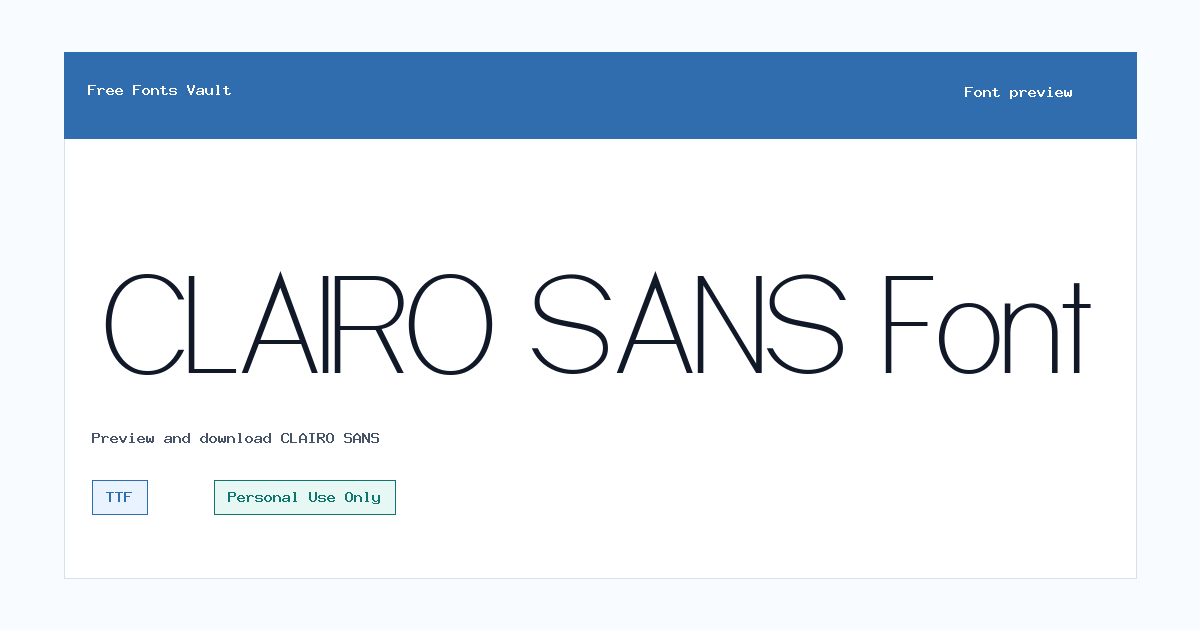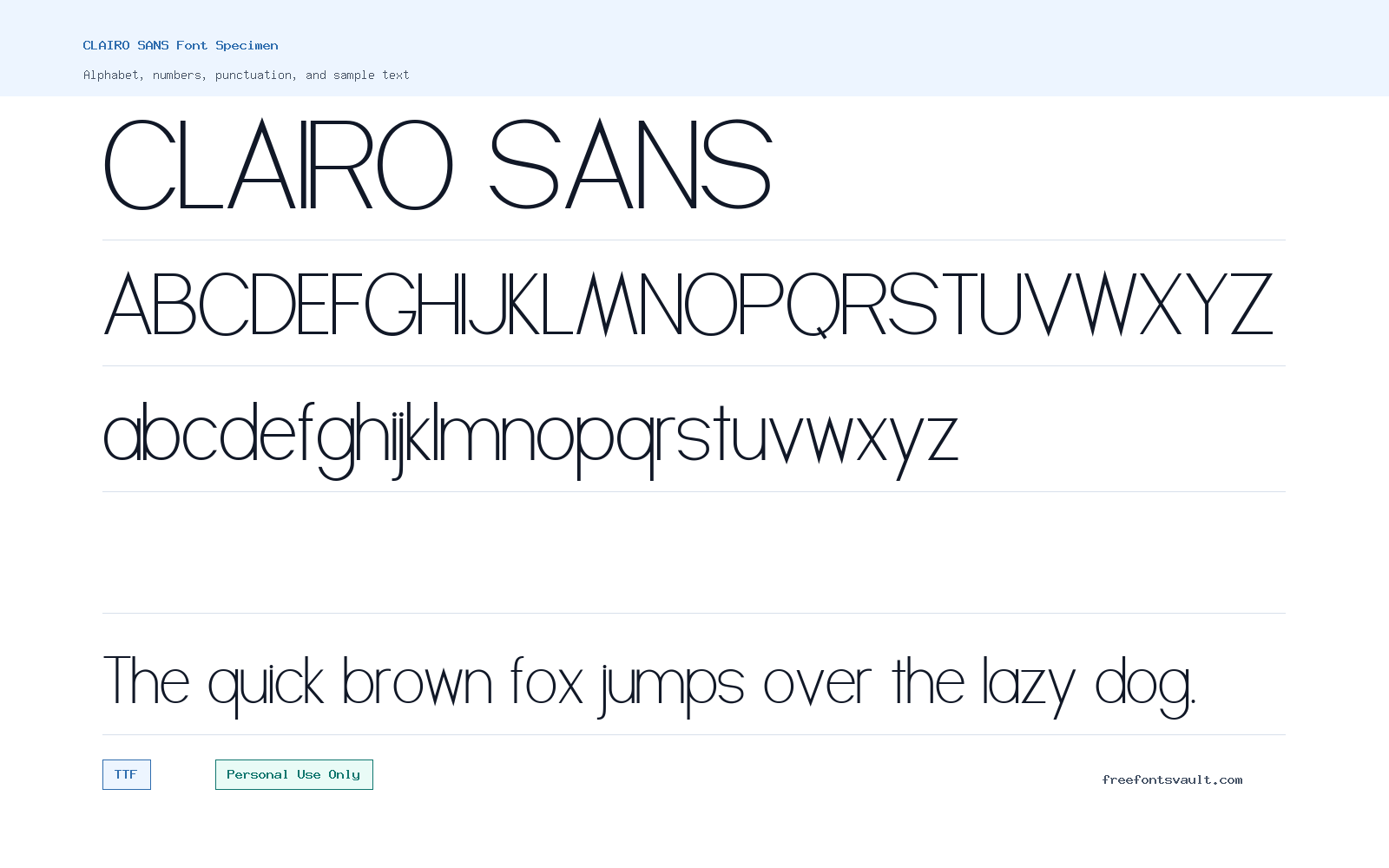
CLAIRO SANS
CLAIRO SANS font.
CLAIRO SANS is a regular-weight sans serif font for personal design projects, previews, and visual experiments. It is best approached as a clean display option: try it in the font preview with your own words, check the spacing at different sizes, and keep the Personal Use Only license in mind before using it in client or commercial work.
About CLAIRO SANS
CLAIRO SANS is presented as a sans serif font family with a Regular style in TTF format. The available style is normal, weight 400, which makes it useful for testing straightforward text settings rather than a large multi-weight branding system. Because only one weight is listed, it works best when the design does not depend on bold, light, italic, or extended font variations. Use it for simple title lines, compact labels, mood boards, social graphics, early logo sketches, personal posters, and web layout mockups where a clean sans serif voice is enough.
For designers, the most useful way to judge CLAIRO SANS is to preview real project text instead of sample alphabets alone. Try your brand name, a short headline, a button label, and a few mixed-case words. Look closely at how the letters sit next to each other, especially in tight logo-style settings. If the spacing feels too loose or too close, adjust tracking manually in your design app. Since the font is a single regular TTF, it may be better for short display use than for long paragraphs, dense UI screens, or complete editorial layouts that need a full range of weights.
CLAIRO SANS can be a practical starting point for logo concepts, poster headlines, quote graphics, packaging mockups, and website hero sections. For logo work, test it in uppercase, lowercase, and title case before choosing a direction. For posters, pair it with strong spacing and a simple layout rather than relying on many font styles. For web mockups, use it to explore tone and hierarchy, but remember that final production use depends on licensing. If you need a full commercial brand identity, confirm whether a commercial license exists before handing off artwork.
Font pairing should stay simple. A regular sans serif often pairs well with a readable serif for body copy, a neutral system sans for interface text, or a restrained mono font for small technical details. Avoid pairing it with another similar sans serif unless there is a clear contrast in weight, width, or texture; two close sans faces can make a layout feel accidental. If CLAIRO SANS is used for a headline, let the supporting typeface handle longer reading. If it is used for small labels, keep the rest of the page quiet so the design does not become visually flat.
- Regular normal style with 400 weight, suitable for clean short-text previews and simple design layouts.
- Sans serif classification, useful for headlines, mockups, labels, and modern-looking personal projects.
- Single listed variant, making it easy to test quickly without choosing between multiple weights.
- Works best when paired with a contrasting text face for longer copy or more detailed layouts.
- Personal logo concepts and wordmark experiments
- Poster titles and event-style headline drafts
- Website hero mockups and landing page previews
- Social media graphics, quote cards, and simple banners
- Packaging concepts, mood boards, and presentation visuals
- Short labels, navigation mockups, and clean title treatments
What type of font is CLAIRO SANS?
CLAIRO SANS is listed as a sans serif font. The available file is a Regular style with normal styling and 400 weight.
Can I use CLAIRO SANS for a logo?
You can test it for personal logo concepts and mockups. For a real business logo, client project, product, or paid brand identity, confirm commercial licensing first.
It may work for short text, but only a Regular 400 style is listed. For long reading, test carefully or pair it with a more complete text family.
How should I pair CLAIRO SANS with other fonts?
Use CLAIRO SANS for the headline or main label, then pair it with a readable serif, neutral sans, or simple mono font. Choose contrast rather than another very similar sans.
Does CLAIRO SANS include bold or italic styles?
Only one Regular style is listed. If you need bold, italic, or multiple weights, check for an expanded family or use another font for those roles.